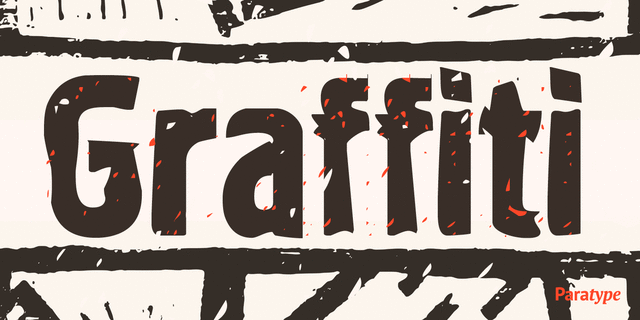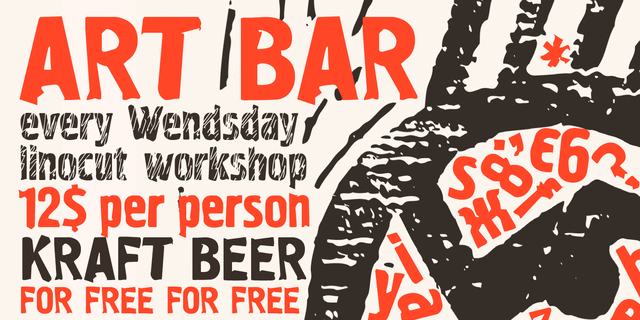
Graffiti (5 fonts)
An experimental type family designed at ParaType (ParaGraph) in 1996 by Alexander Tarbeev, based on the forms of PT Hermes, 1993, by Tagir Safayev. Can be used in advertising and display typography.
Features of font family GraffitiThe hit of the decade:
Hit of 1990s Close to historical original:
Associations for font family GraffitiTypeface personality and character:
tough, party, clubbing, risky, extremal, daring, street, shocking, urbanistic, aggressive, dangerous, explosive, student, impudent, careless, yelling, rude, rigid, brutal, urban, radical, boyish, nervous, quick-tempered, incendiary, autumn
Typeface exhibits stylistic traits: